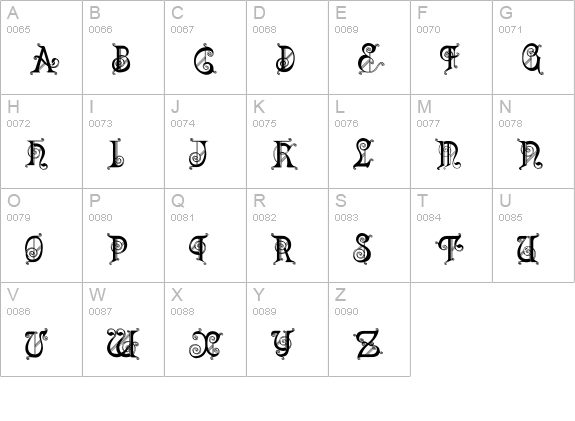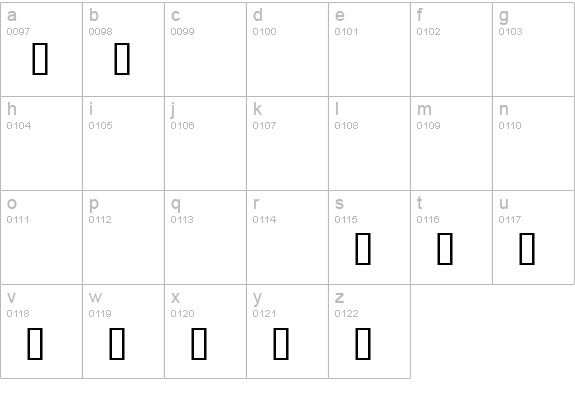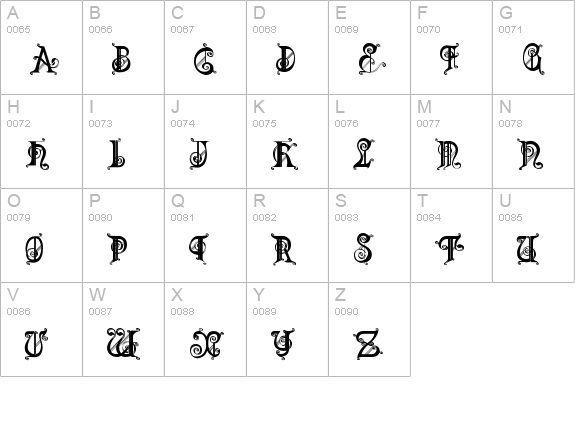
Lubna Caps font is a stunning display font that exudes elegance and sophistication. With its beautifully crafted letterforms and intricate details, this font is perfect for adding a touch of style to any project. Featuring captivating capital letters, Lubna Caps font adds a sense of luxury and refinement to headlines, logos, invitations, and more. Its tall and slender design creates a visually striking impact, making it a standout choice for those seeking a unique and eye-catching typographic solution. But what sets Lubna Caps font apart is the fact that it is not only visually stunning but also free. That's right, this extraordinary font is freely available to download at FontsMarket.com. Whether you're a professional designer or just someone looking to elevate their creative projects, Lubna Caps font offers the perfect blend of beauty and accessibility. With its generous availability and wide range of potential applications, Lubna Caps font is a versatile choice for a variety of design projects. From elegant wedding invitations to sleek branding materials, this font is sure to leave a lasting impression. So why wait? Download Lubna Caps font today and unleash your creativity with this effortlessly stylish and free font. Visit FontsMarket.com to get your hands on this remarkable typeface and start creating stunning visuals that will captivate and inspire.